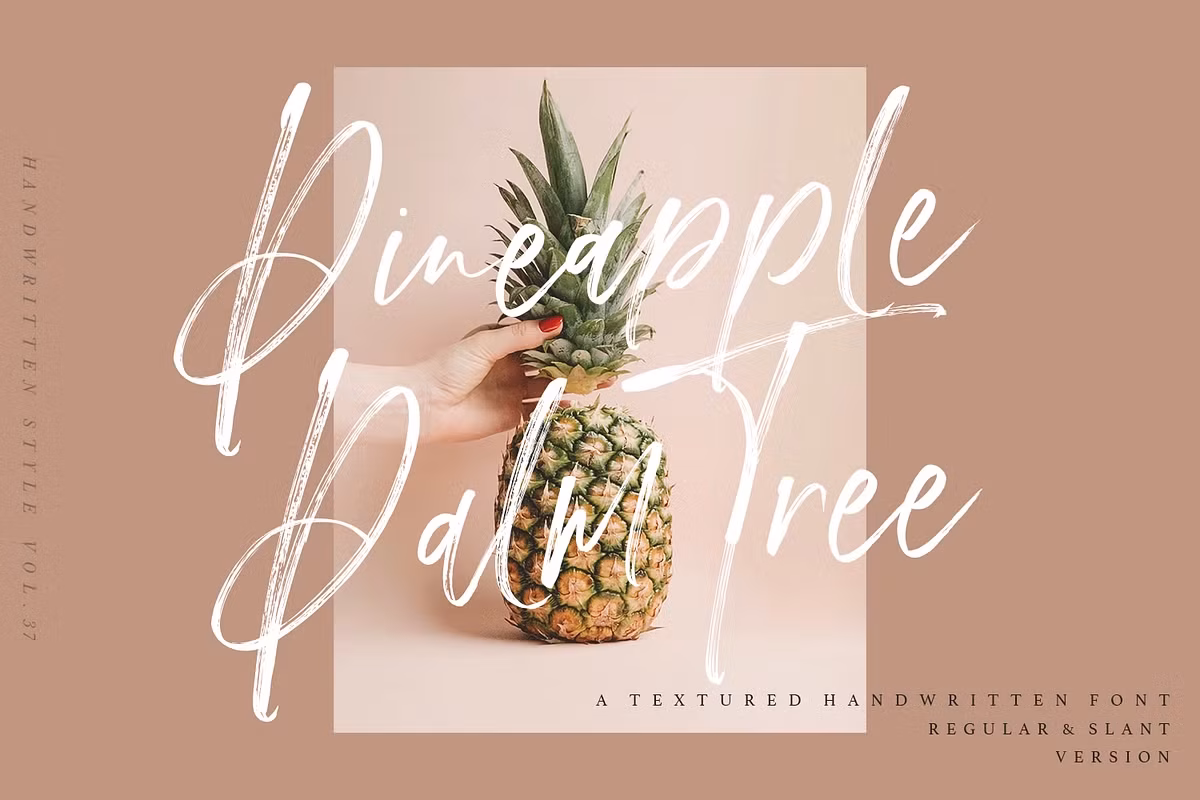
Pineapple Palm Tree – Handwritten Font Free Download is a breezy, carefree script font that captures the sunny vibes of summer days and tropical getaways. With its playful curves, relaxed strokes, and handwritten charm, this font is perfect for beach-themed branding, vacation merch, travel blogs, summer invitations, and fun social media posts.
Whether you're designing for a surf shop, a tropical café, or simply want to add a laid-back feel to your project, Pineapple Palm Tree – Handwritten Font Free Download brings the warmth and personality of handwritten lettering to life.